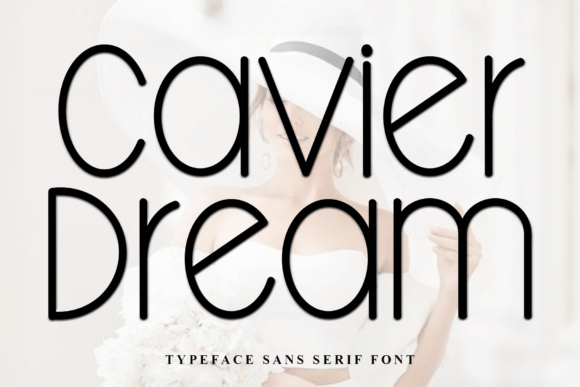
Cavier Dream Font: Elevate Your Design with Sleek Sophistication
In the world of typography, fonts play a crucial role in conveying the tone and aesthetic of a design. For those seeking a touch of luxury and modern elegance, the Cavier Dream font is an exceptional choice. This sleek and stylish sans serif font has been gaining attention for its unique blend of rounded shapes and tall, thin lines, making it perfect for a variety of design applications.
The Essence of Cavier Dream
Cavier Dream is characterized by its soft, modern look, which is achieved through its rounded edges and slender lines. This distinctive combination gives the font a sophisticated yet approachable feel, making it suitable for projects that demand a level of refinement. The font’s design ensures that it remains easy to read, a crucial factor for any typography, while still conveying a sense of luxury and high-end quality.
Applications of Cavier Dream
The versatility of Cavier Dream is one of its most appealing features. This font excels in various design contexts, including:
- Branding: For businesses looking to establish a modern and sophisticated brand identity, Cavier Dream offers a typography solution that stands out. Its unique style can help brands differentiate themselves in a crowded market.
- Fashion: In the fashion world, aesthetics are everything. Cavier Dream’s sleek and stylish appearance makes it an ideal choice for fashion brands, magazines, and editorials that require a typography style that exudes elegance and trendiness.
- Editorial Layouts: For editorial projects, such as magazines, newspapers, and blogs, the readability and aesthetic appeal of Cavier Dream make it an excellent option. It enhances the visual appeal of the content without compromising on legibility.
- Wedding Design: Weddings are a celebration of love and style. Cavier Dream’s luxurious feel makes it perfect for wedding invitations, programs, and other wedding-related materials, adding a touch of sophistication and romance to the proceedings.
Why Choose Cavier Dream?
When it comes to selecting a font for a design project, there are numerous options available. However, Cavier Dream stands out for several reasons:
- Refined Elegance: It brings a level of sophistication to any project, making it suitable for clients or brands aiming for a high-end image.
- Versatility: Its adaptability across various design applications makes it a valuable asset for designers who work on a wide range of projects.
- Readability: Despite its stylish appearance, Cavier Dream does not compromise on readability, ensuring that the message is communicated effectively.
Tips for Using Cavier Dream Effectively
To maximize the impact of Cavier Dream in your designs, consider the following tips:
- Pair with Complementary Fonts: While Cavier Dream is elegant on its own, pairing it with complementary fonts can enhance its appeal. Choose fonts that contrast yet complement its sleek lines and rounded edges.
- Adjust Weight for Emphasis: Experiment with different weights of Cavier Dream to create visual hierarchy in your designs. This can help draw attention to key messages or elements.
- Consider Color and Texture: The color and texture used alongside Cavier Dream can significantly impact its appearance. Choose colors and textures that enhance its luxurious feel.
Cavier Dream is more than just a font; it’s a design statement. Its sleek and stylish sans serif appearance, coupled with its touch of luxury, makes it an exceptional choice for designers and crafters looking to elevate their projects. Whether it’s for branding, fashion, editorial layouts, or wedding design, Cavier Dream offers a refined elegance and versatility that can enhance any design. By incorporating Cavier Dream into your typography arsenal, you can ensure that your designs not only look modern and sophisticated but also convey a sense of luxury and high-end quality.